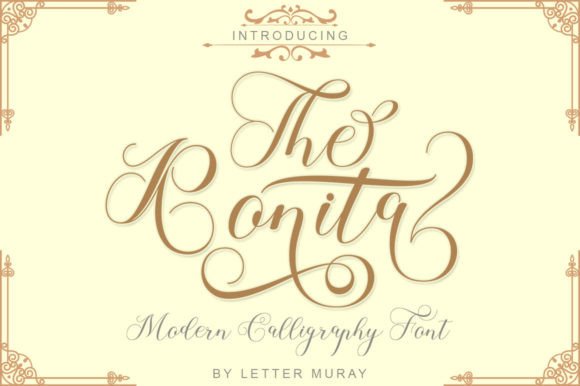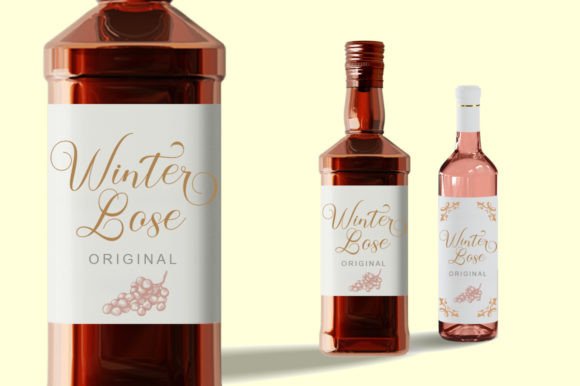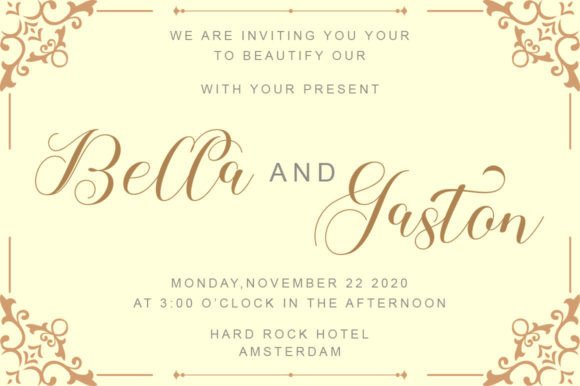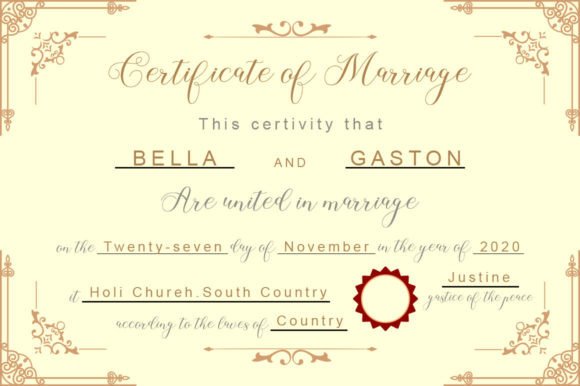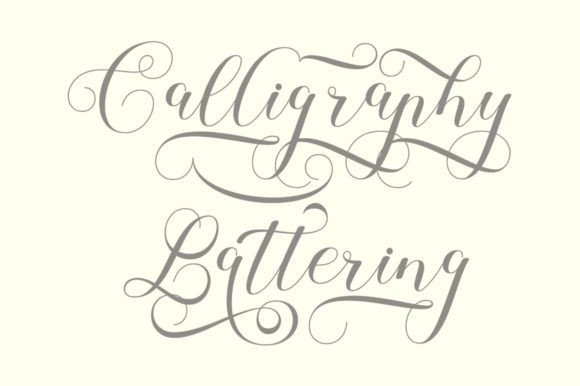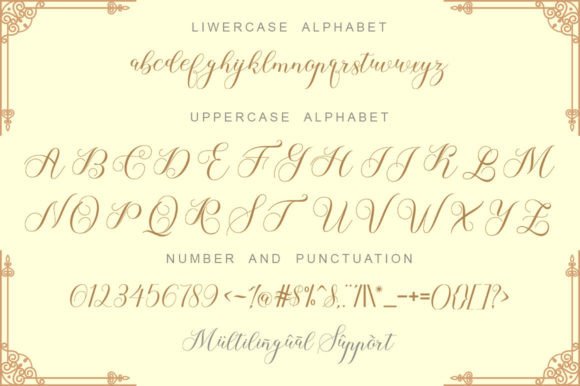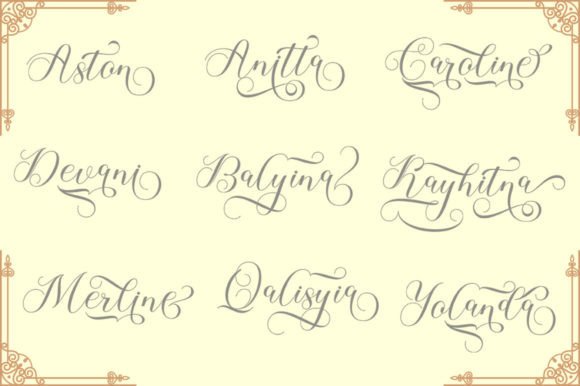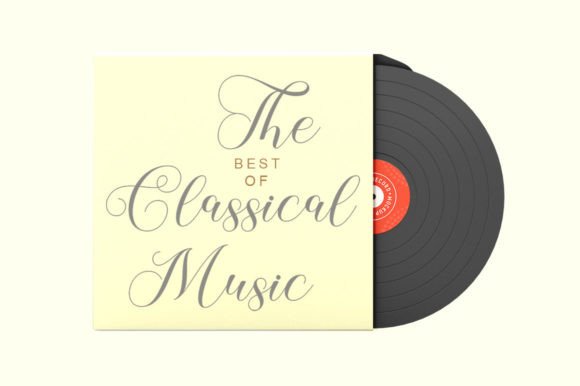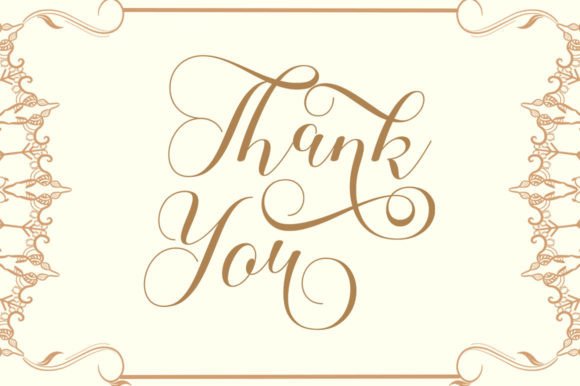
The Ronita Font
About The Ronita Font
“The Ronita” is a gracefully flowing handwritten font, characterized by its elegant and timeless essence, making it an excellent choice for your favorite creative projects. You’re sure to be captivated by its unique and enduring style, and you can harness its beauty to craft stunning and memorable designs. What sets “The Ronita” apart is its PUA encoding, granting you convenient access to a wide range of glyphs and swashes, providing endless possibilities for adding decorative elements to your text.
This font’s elegance and fluidity make it perfect for various design applications, from branding and logos to invitations, stationery, and more. “The Ronita” brings a touch of sophistication and refinement to your text, ensuring that your projects exude an air of timeless beauty.
The versatility of “The Ronita” is truly remarkable. It adapts effortlessly to different design contexts, offering flexibility and creative freedom. Whether you’re working on a luxury brand identity, crafting elegant wedding invitations, or designing eye-catching social media posts, this font will lend a sense of enduring style to your work.
Imagine using “The Ronita” for your logo design, and how it communicates a sense of elegance and sophistication to your target audience. Picture incorporating this font into your wedding invitations, setting the tone for a truly memorable celebration. When you utilize “The Ronita” for your stationery, your correspondence takes on a level of timelessness that leaves a lasting impression.
In conclusion, “The Ronita” is more than just a font; it’s a design asset that adds a touch of elegance and enduring beauty to your creative projects. Its flowing and elegant style makes it a versatile choice for a wide range of applications, and its PUA encoding offers you the creative freedom to explore numerous decorative options. Fall in love with “The Ronita” and let it be your go-to font for creating designs that stand the test of time.